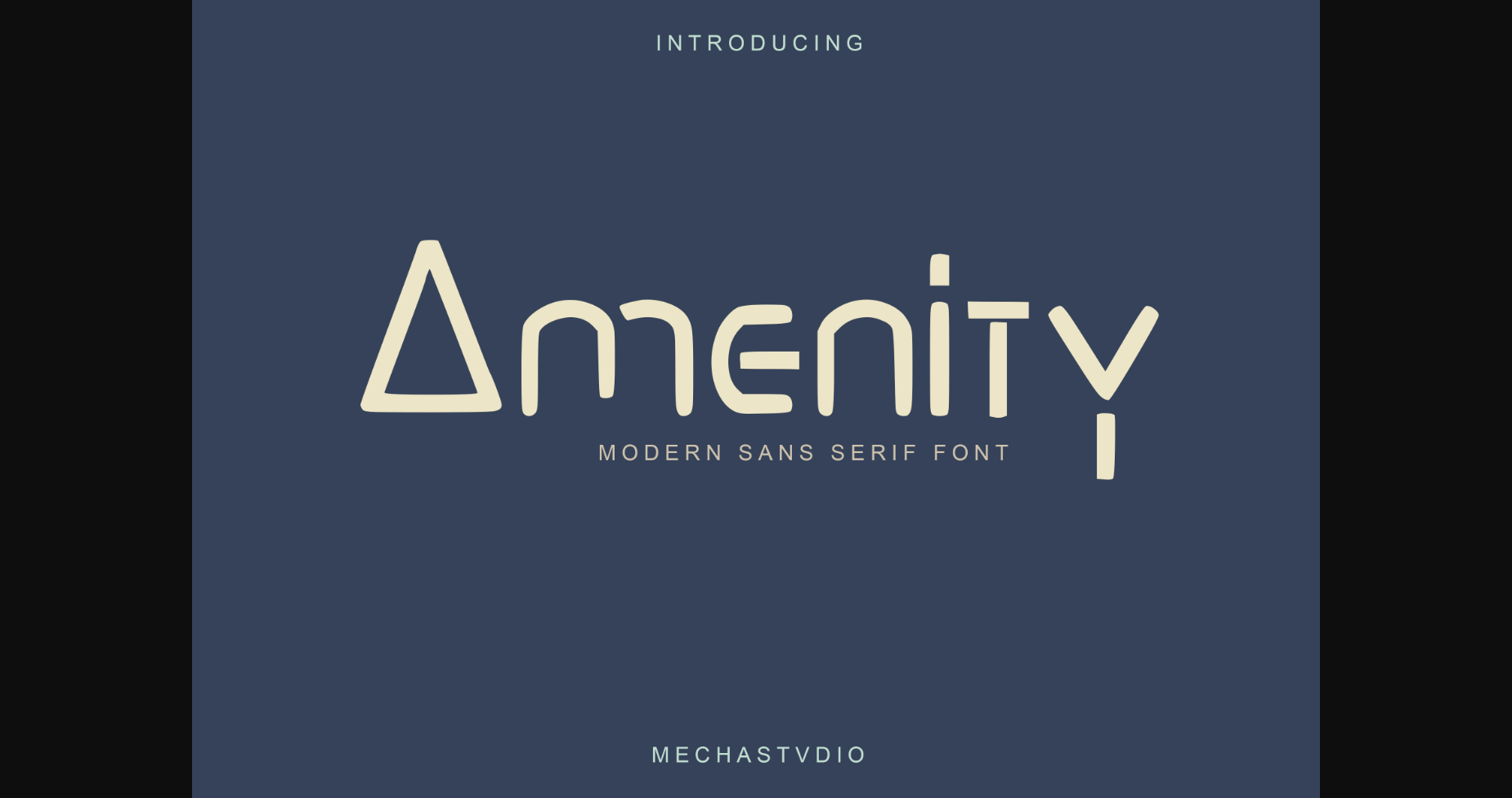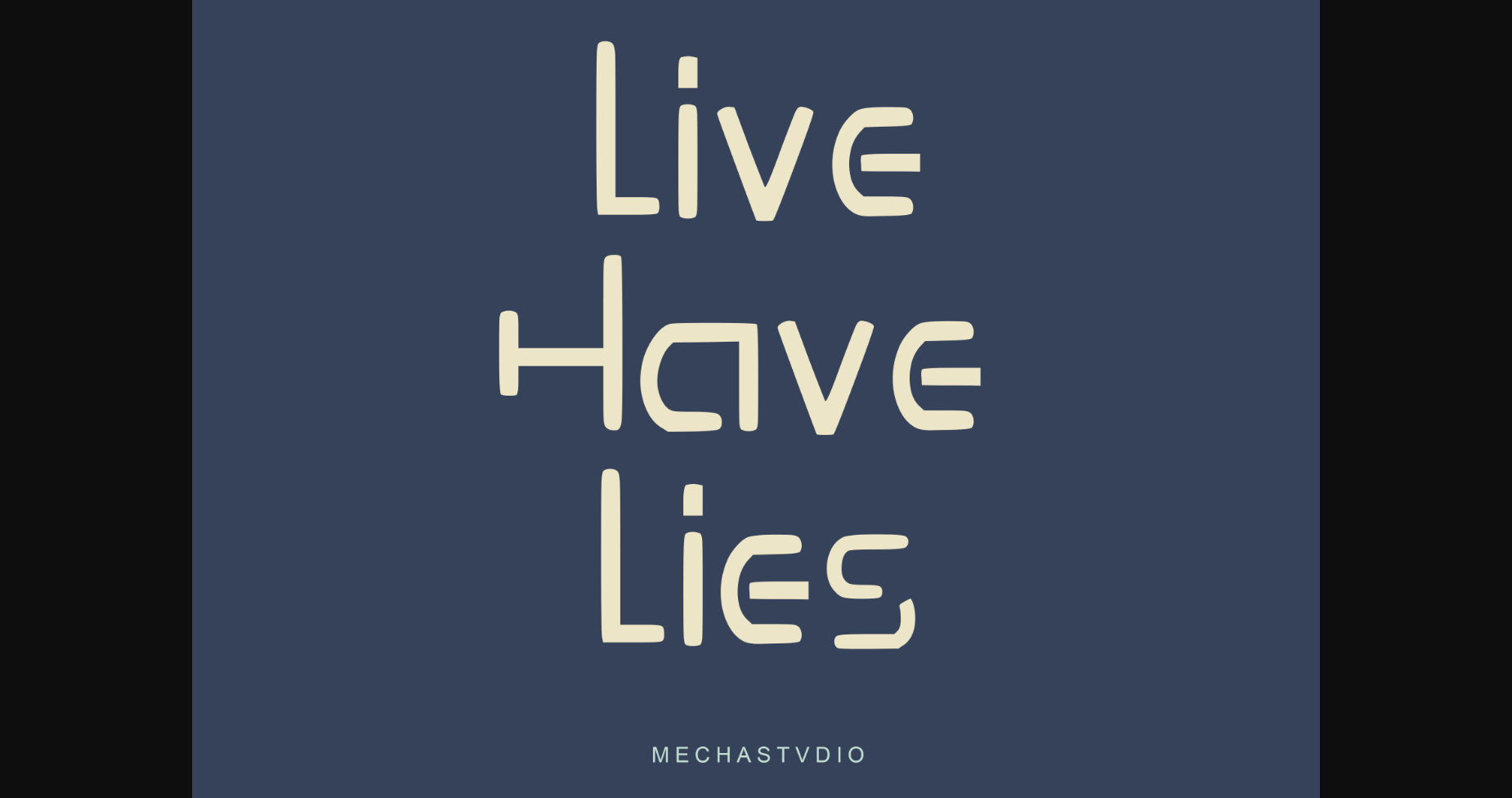
About Amenity Font
Amenity is a modern, clean, and unique sans serif font. Its unique style is perfect for all your projects as it has the potential to transform them into a true standout.